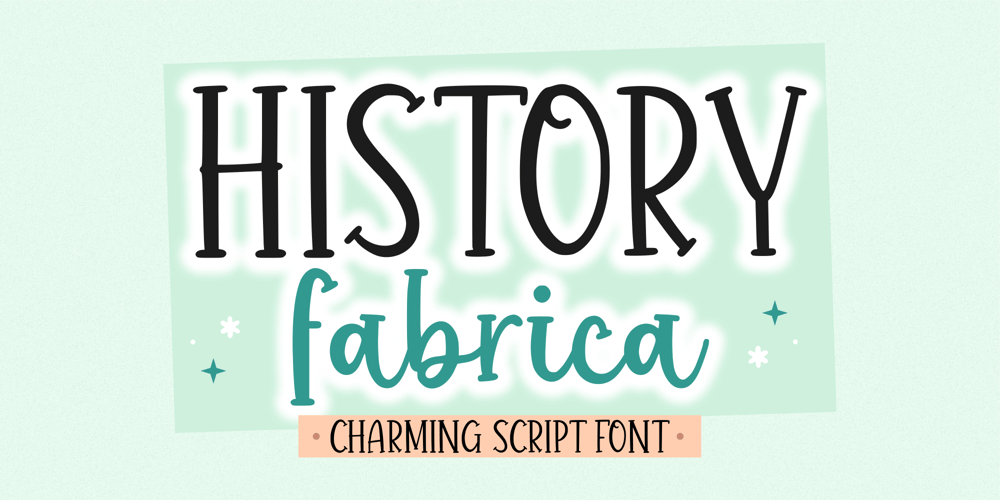
History Fabrica Font Family was designed by Fachrizal Yusuf and published by Allouse Studio. History Fabrica contains 1 styles and family package options. Proudly Presenting, History Fabrica A Charming Script Font.History Fabrica is perfect for any titles, logo, product packaging, branding project, megazine, social media, wedding, or just used to express words above the background.History Fabrica also come with Multi-Lingual Support.Enjoy the font, feel free to comment or feedback, send me PM or email. Thank You!